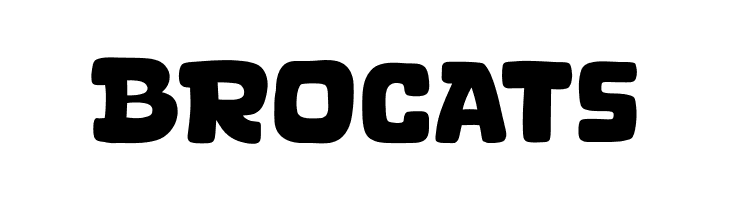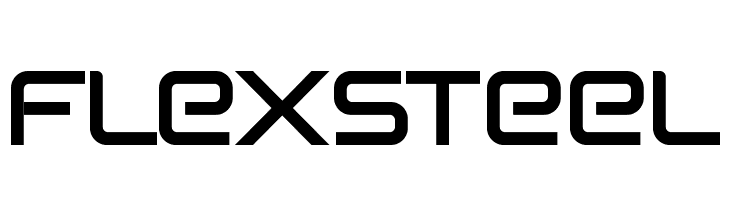
A modern, geometric font with a futuristic and technical design.
A bold, outlined font with a modern, geometric style.
A bold, rounded font with a playful and friendly style.
A bold, italic script font with a fluid, handwritten style.
A bold, slanted font with a dynamic and modern style.
A playful, dotted handwritten font with a whimsical style.
A casual, handwritten font with a natural and personal touch.
A modern, geometric font with sharp angles and a futuristic style.
A playful, casual font with smooth, rounded letterforms and a slightly slanted style.